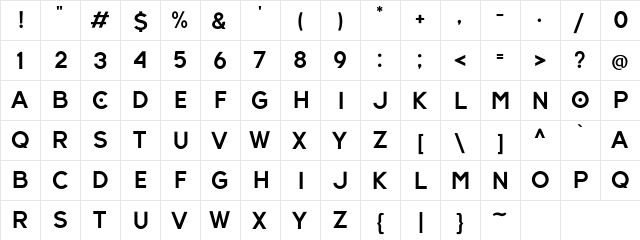
Hundred Ligatture Regular
| Foundry | Patria Ari Typestudio |
| Designer | Patria Ari Wijonarko |
Design Context for Hundred Ligatture Typeface
Hundred Ligatture offers clean, dependable letterforms without strong stylistic allegiance, making it a practical choice for designers who need flexibility.